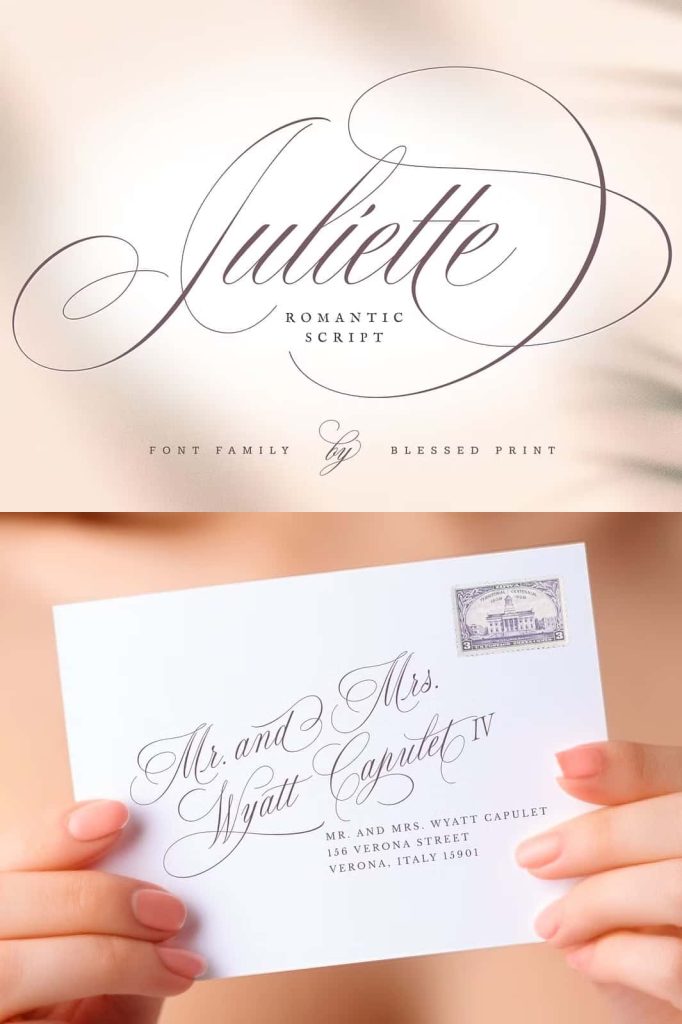
Juliette – Romantic Wedding Script
Juliette Script Font – Romantic Elegance in Every Stroke
Juliette Script Font is a beautifully romantic and refined typeface inspired by the timeless elegance of Spencerian script and classic American handwriting. With its graceful curves, delicate loops, and natural rhythm, Juliette Script captures the true essence of love, artistry, and sophistication. Designed for wedding invitations, branding projects, and luxury design concepts, this font exudes both beauty and confidence. If you adored the graceful flow of my previous popular scripts, Mozart and Ecatherina, you’ll fall deeply in love with Juliette Script’s expressive charm.
A Handcrafted Script Inspired by Romance and Tradition
Juliette Script was crafted to emulate the refined precision of the 19th-century Spencerian penmanship style — a form of handwriting known for its elegance, balance, and fluidity. Every letter was drawn with care, designed to feel as if it were written by hand using a fine-tipped pen. This personal touch creates a sense of intimacy and artistry, making Juliette Script perfect for designs that need emotion and grace.
Unlike many digital script fonts, Juliette Script avoids rigidity. Instead, it flows naturally, creating realistic handwritten text with beautiful ligatures and flourishes. Each curve and connection was thoughtfully shaped to express emotion, making your words feel alive on the page. Whether you’re designing a wedding suite, an elegant logo, or sophisticated packaging, Juliette Script adds a layer of authenticity that digital fonts often lack.
Perfect for Wedding Invitations, Logos, and Elegant Branding
Juliette Script Font was designed for creatives who want to elevate their projects with romance and refinement. Its soft, sweeping strokes and well-balanced structure make it perfect for wedding invitations, save-the-date cards, and bridal stationery that tell love stories with style. The font’s natural elegance also shines in brand identities and logos for luxury boutiques, fashion houses, florists, and fine art studios.
For editorial layouts and social media content, Juliette Script brings an elevated, poetic atmosphere. It pairs beautifully with modern serif or sans-serif fonts, creating a timeless balance between classic and contemporary. From business cards to packaging labels, every use of Juliette Script adds sophistication and a touch of romance. Its flowing form captures attention and leaves a memorable impression wherever it appears.
Elegant Details, Modern Functionality
While Juliette Script celebrates vintage elegance, it’s built for modern usability. The font includes refined alternates, ligatures, and smooth connections to ensure a natural flow between letters. Each glyph was carefully designed to maintain readability without sacrificing its luxurious aesthetic. Its versatility allows it to adapt effortlessly to both digital and print designs — whether displayed in large headlines or small text accents.
Every curve of Juliette Script was drawn to evoke feeling and personality. Its soft lines invite the eye to follow along, creating an emotional connection between text and reader. This makes it an ideal typeface for designs that need warmth, sophistication, and character. Whether you’re designing a personal stationery set or developing a professional brand, Juliette Script brings an artisanal touch that elevates your work.
Key Features of Juliette Script Font
• Romantic design: Inspired by Spencerian script and classic American handwriting traditions.
• Perfect for weddings: Ideal for invitations, signage, and event branding.
• Elegant alternates: Includes ligatures and swashes for authentic handwritten flow.
• Versatile application: Works beautifully in logos, packaging, and editorial designs.
• High readability: Balances detail and clarity for both print and digital formats.
• Timeless charm: Combines classic penmanship with modern refinement.
Design with Passion and Sophistication
Juliette Script Font invites designers to create with heart and elegance. Its romantic character reflects emotion in every stroke, making it an invaluable asset for creative professionals who want to convey love, luxury, and authenticity. The typeface’s handcrafted charm ensures that no two words feel identical — every piece of text looks unique, personal, and thoughtfully composed.
Use Juliette Script to breathe life into your designs — from lavish wedding suites to high-end branding and editorial work. Its organic flow and polished form elevate even the simplest layouts, adding a refined presence that feels timeless yet fresh. Paired with minimalist typography or delicate color palettes, Juliette Script becomes the focal point of any composition.
Juliette Script Font stands as a true celebration of handwritten artistry. Inspired by Spencerian calligraphy and American penmanship, it merges history with modern design sensibility. Every letter tells a story of elegance, romance, and craftsmanship. Whether you’re creating a heartfelt wedding invitation, a luxury logo, or a sophisticated brand identity, Juliette Script transforms ordinary words into expressions of beauty.
Let your designs speak with grace and sophistication. Choose Juliette Script Font — where timeless romance meets modern creativity.